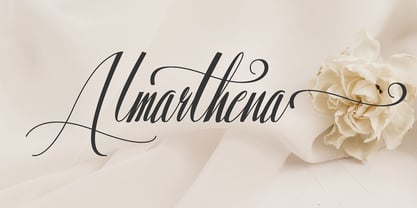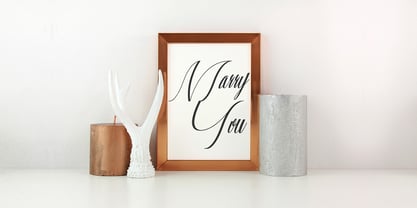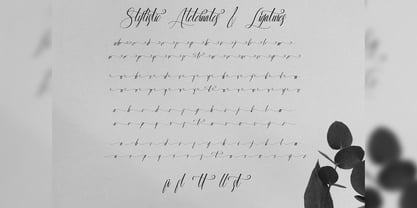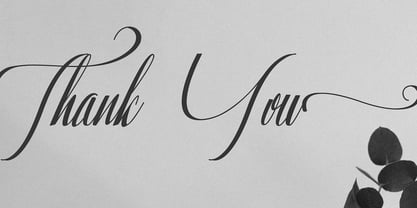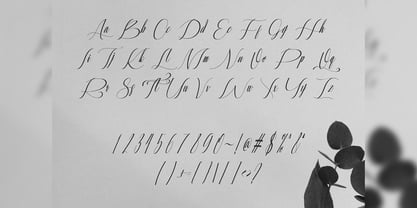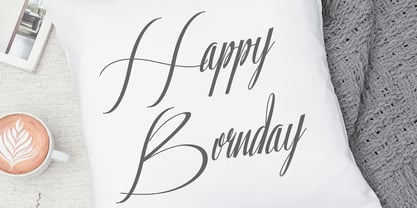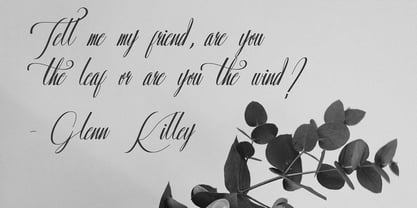
Almarthena
by Jadatype
The Almarthena Font Family was designed by Jada Akbal and published by Jadatype. Almarthena contains 1 styles. More about this family
Almarthena is a free-flowing script font created for packaging products, invitation cards, flyers, mockups, event posters, and anything else that requires high-quality vibes. This font is PUA encoded which means you can access all of the glyphs and swashes with ease.
Designers: Jada Akbal
Current Foundry: Jadatype